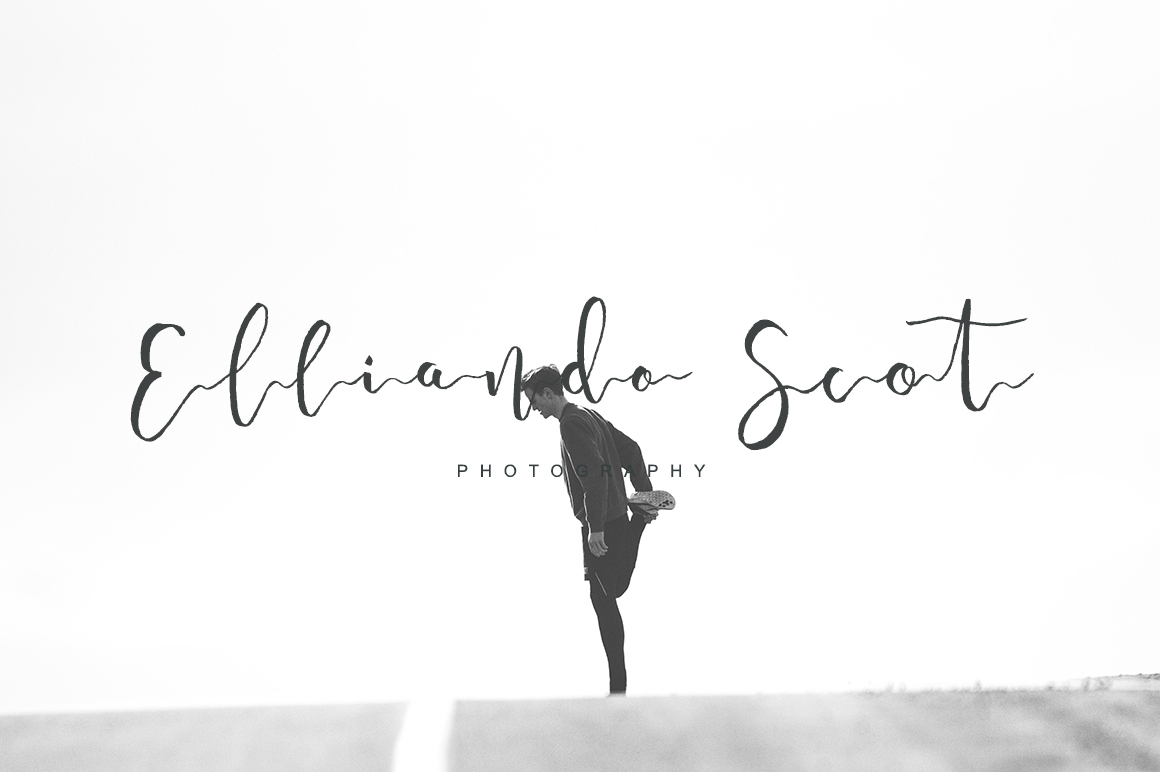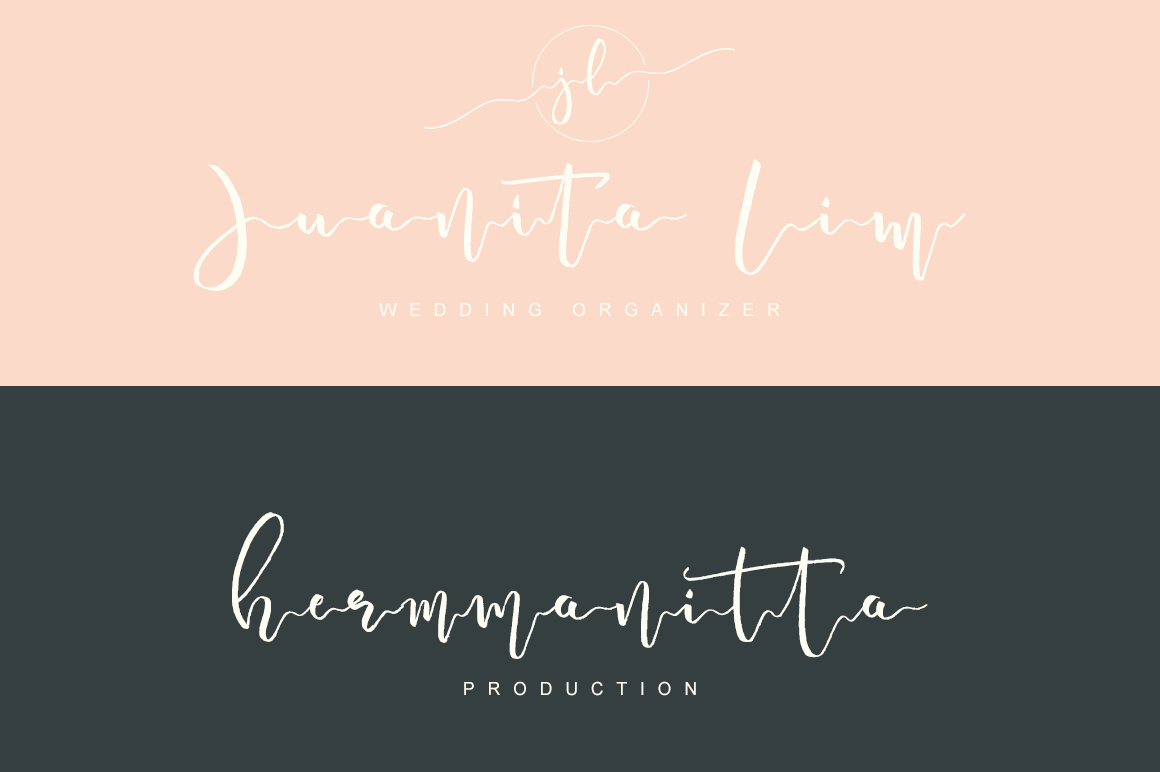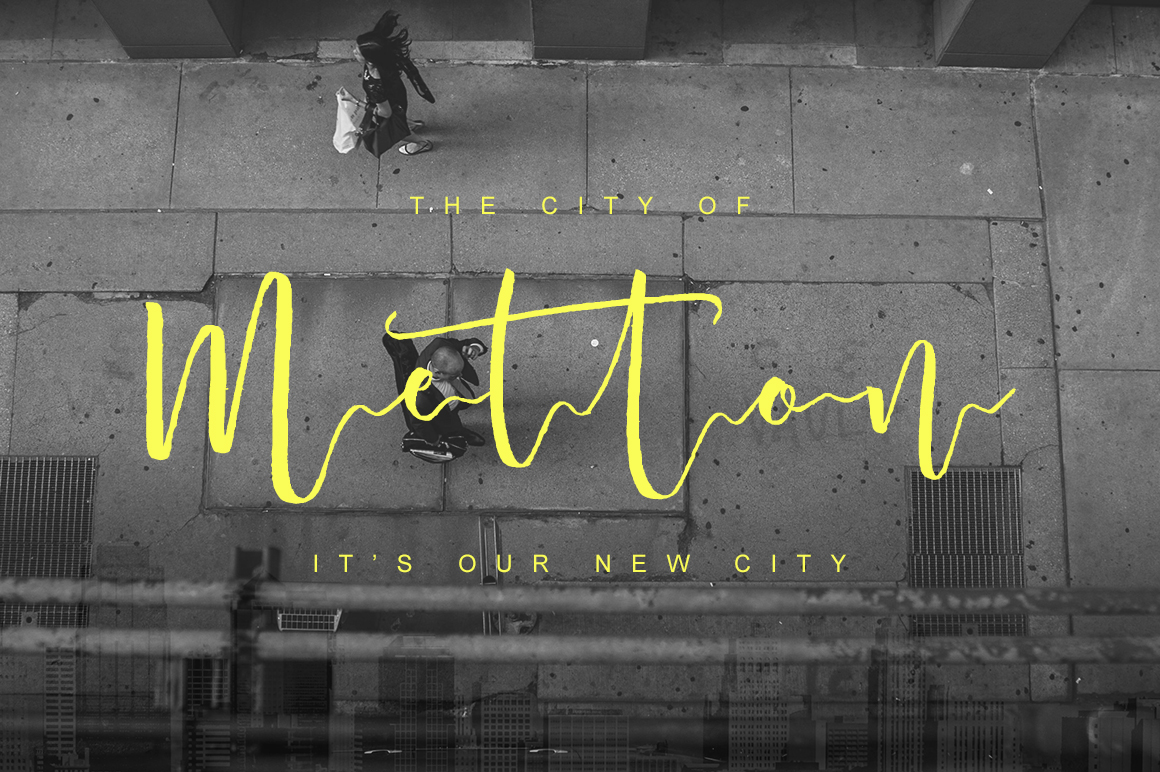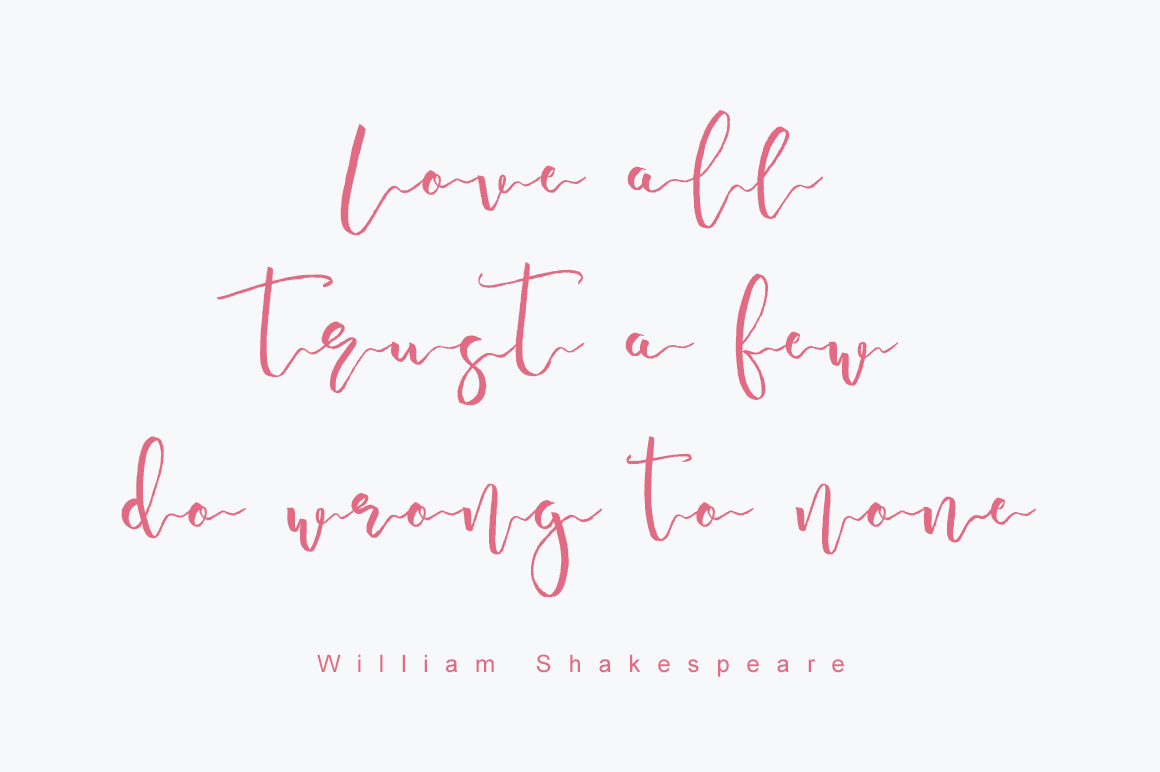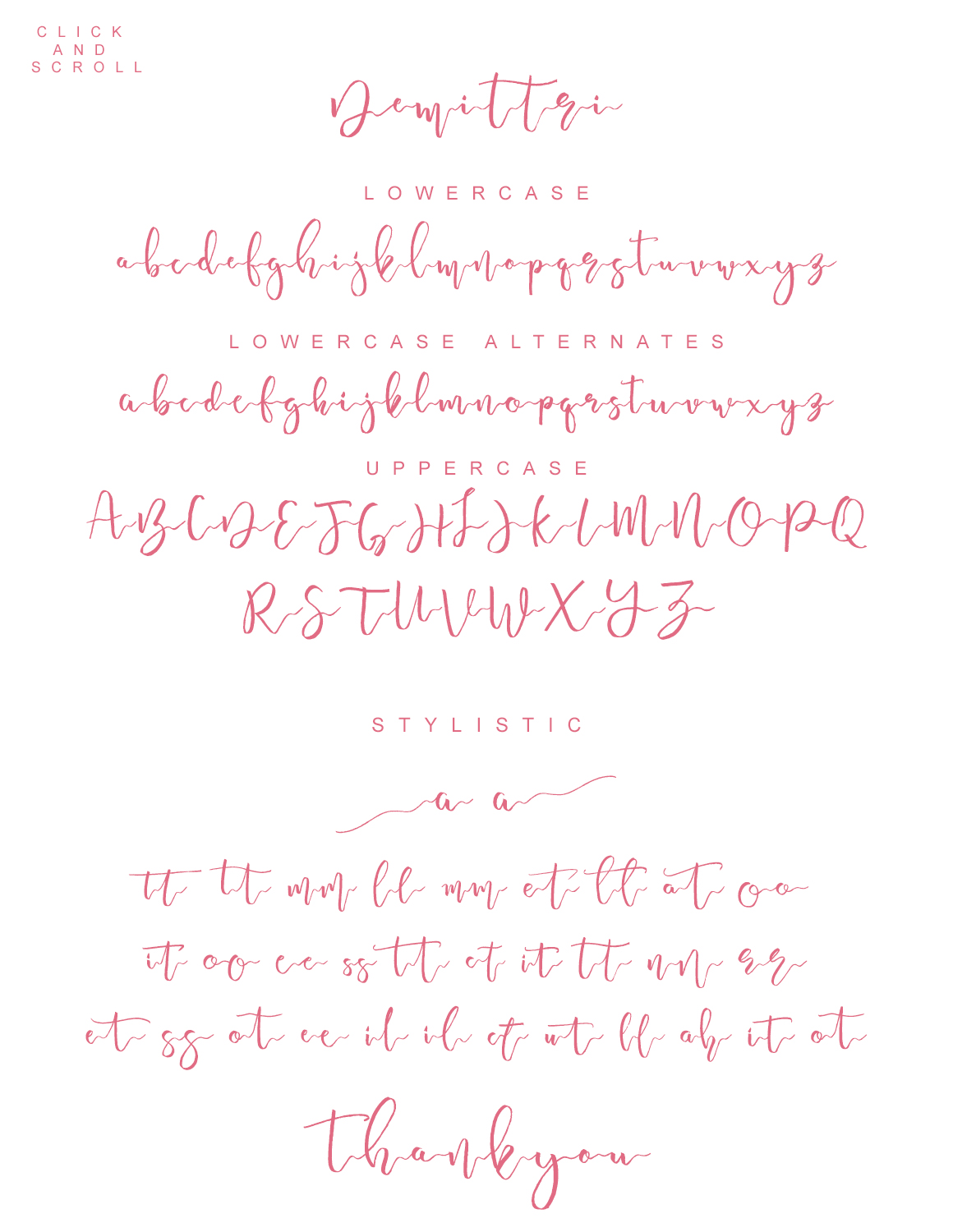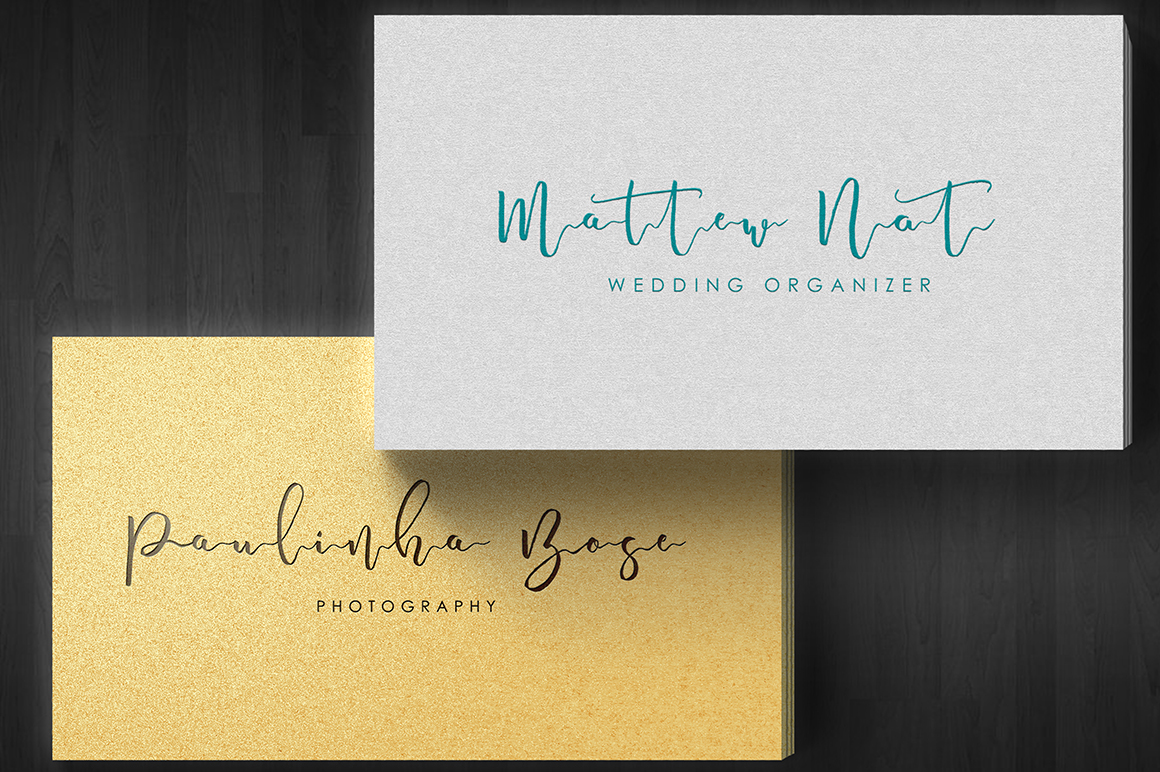
Introducing Demittri Font: A Modern Script Font for Creative Projects
In the world of typography, fonts play a crucial role in conveying the tone and personality of a brand or design. For designers and crafters, finding the perfect font can be a daunting task. However, if you’re looking for a modern script font that exudes elegance and sophistication, look no further than Demittri Font. In this article, we’ll explore the features and benefits of Demittri Font, and why it’s an excellent choice for your next creative project.
What is Demittri Font?
Demittri Font is a modern script font that has been carefully crafted by hand to create a coherent look and feel. Every single letter has been meticulously designed to ensure that the font flows smoothly and consistently. The result is a beautiful, elegant font that is perfect for a wide range of projects, from branding and advertising to packaging and digital media.
Key Features of Demittri Font
- Hand-crafted design: Each letter has been carefully designed by hand to create a unique and cohesive look.
- Modern script style: Demittri Font features a modern script style that is both elegant and sophisticated.
- Highly legible: The font is designed to be highly legible, making it perfect for use in a variety of contexts.
- Versatile: Demittri Font can be used in a wide range of projects, from print to digital media.
Benefits of Using Demittri Font
- Adds elegance and sophistication: Demittri Font adds a touch of elegance and sophistication to any design.
- Improves brand recognition: A unique and consistent font can help to improve brand recognition and establish your brand’s identity.
- Enhances readability: The high legibility of Demittri Font makes it easy to read, even in small sizes.
- Versatile and flexible: Demittri Font can be used in a wide range of projects, from formal documents to creative designs.
- Use in headlines and titles: Demittri Font is perfect for use in headlines and titles, where its elegance and sophistication can shine.